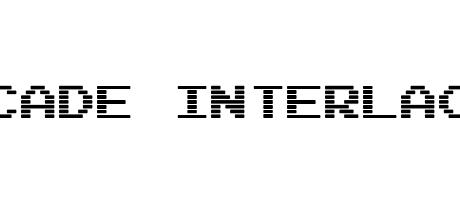
Arcade
By Yuji Adachi
Arcade Interlaced: A bold, retro-futuristic font. Each letter is constructed from tightly packed horizontal lines, creating a pixelated, almost scanline-like effect reminiscent of classic arcade games. The effect is simultaneously sleek and nostalgic, suggesting speed and digital energy. The thick, black lines give it a strong presence.
Arcade Rounded
Arcade Normal
Arcade Interlaced